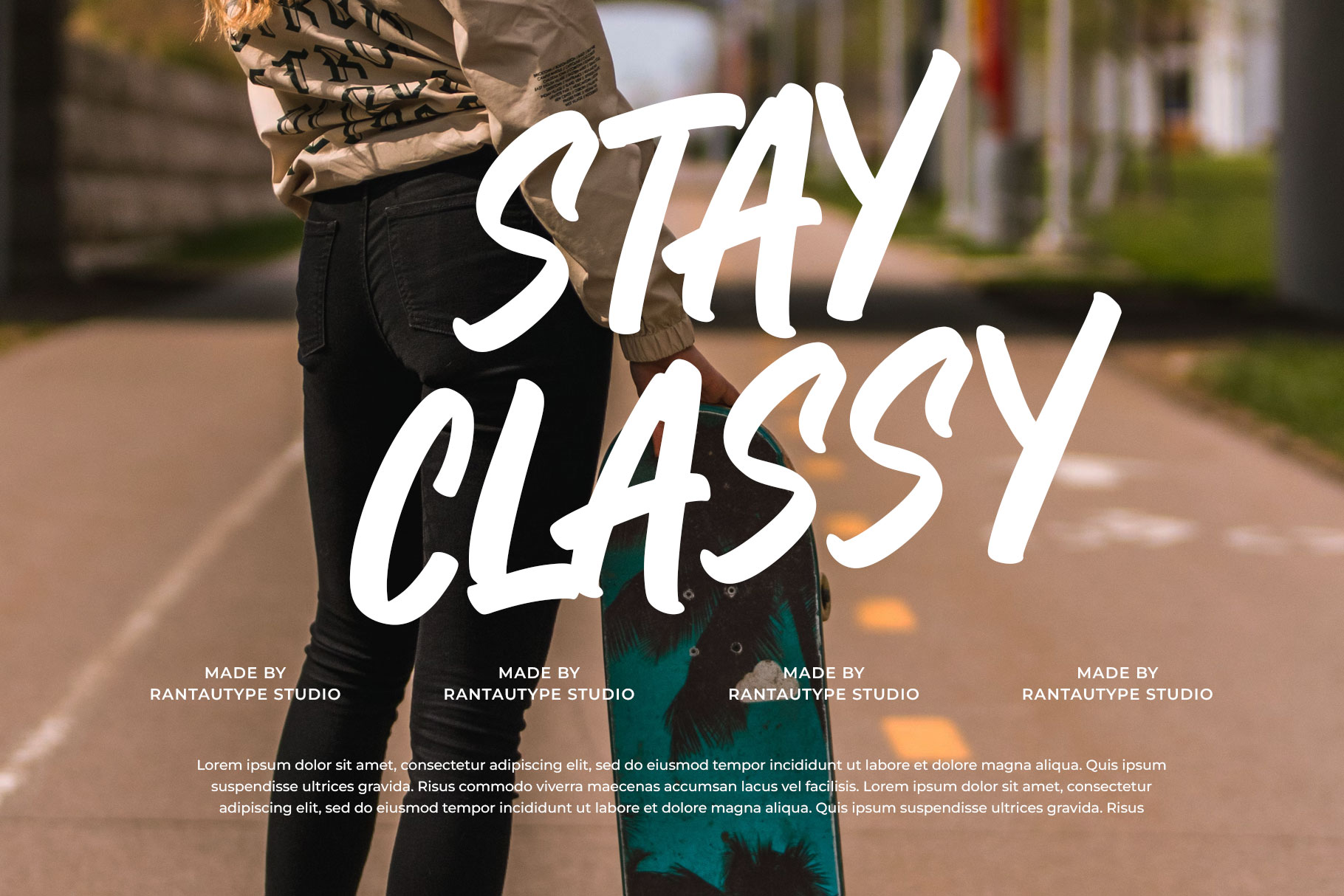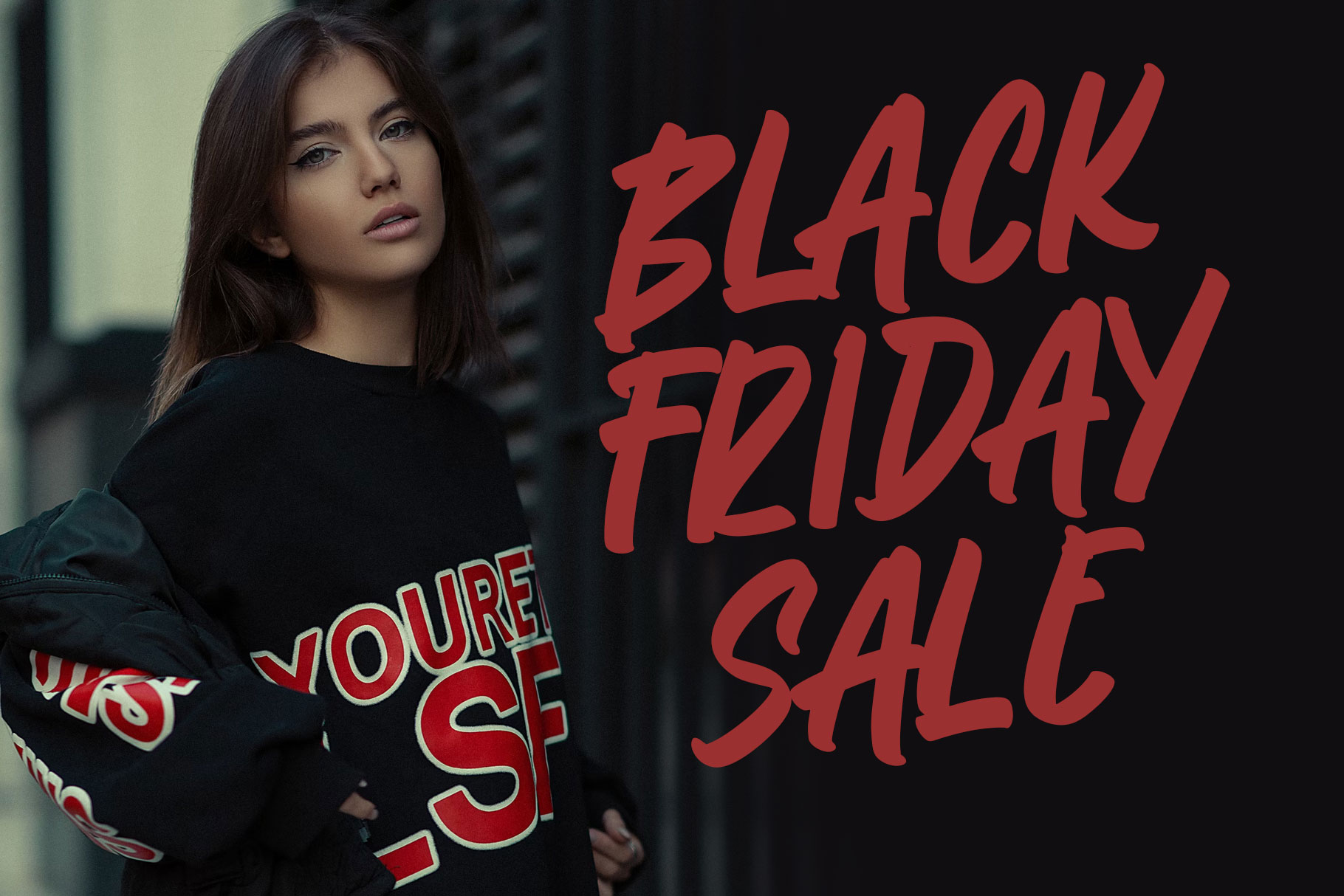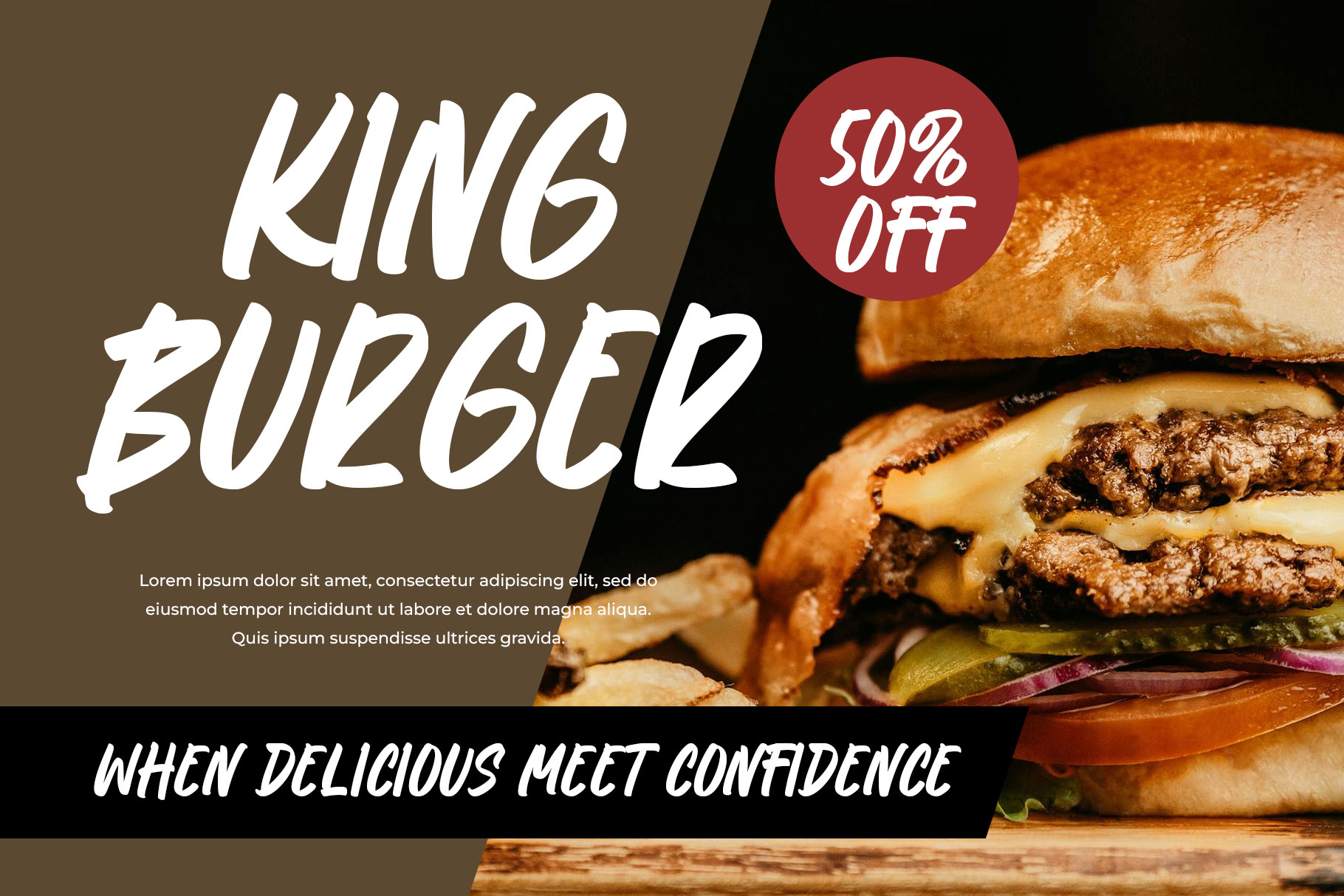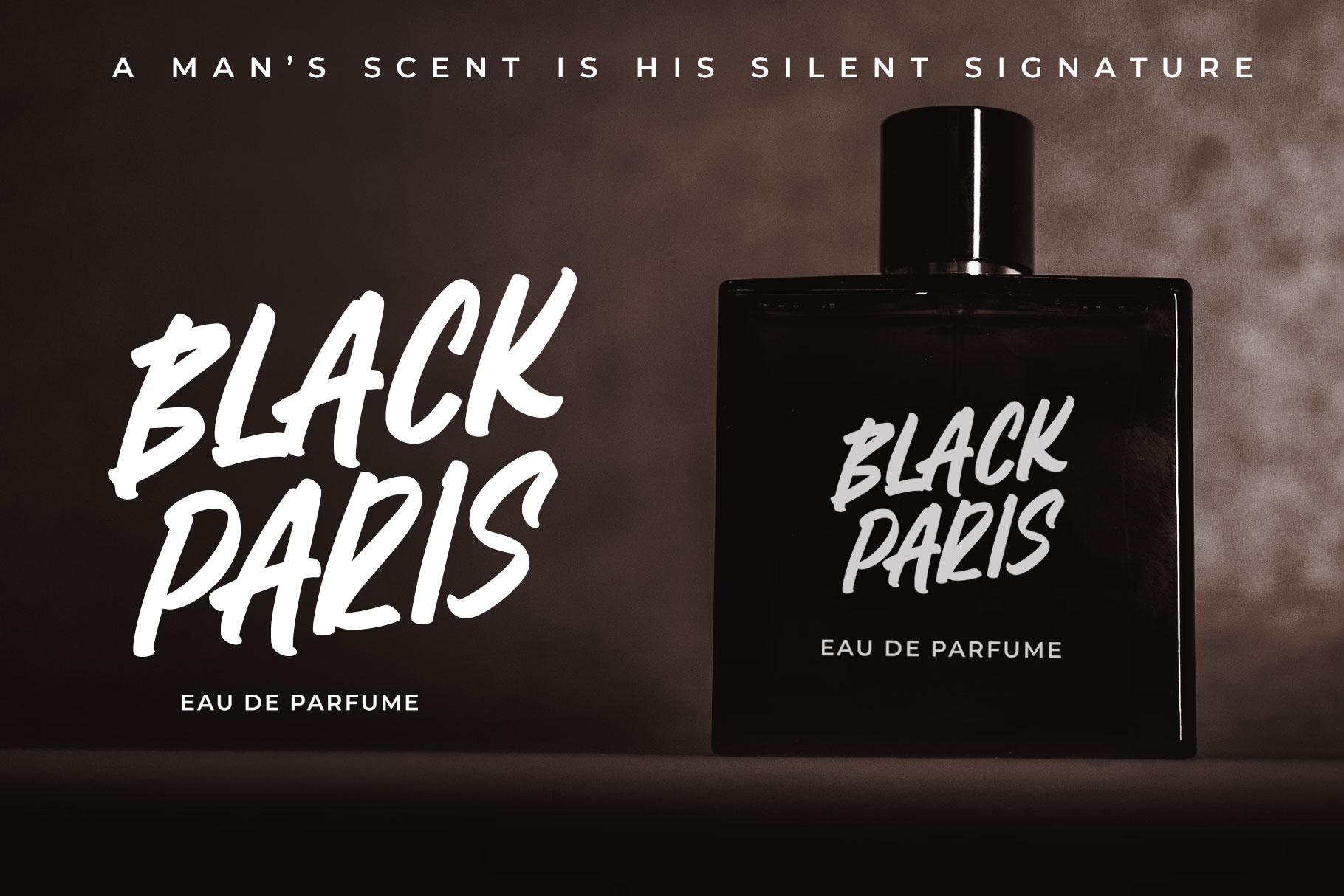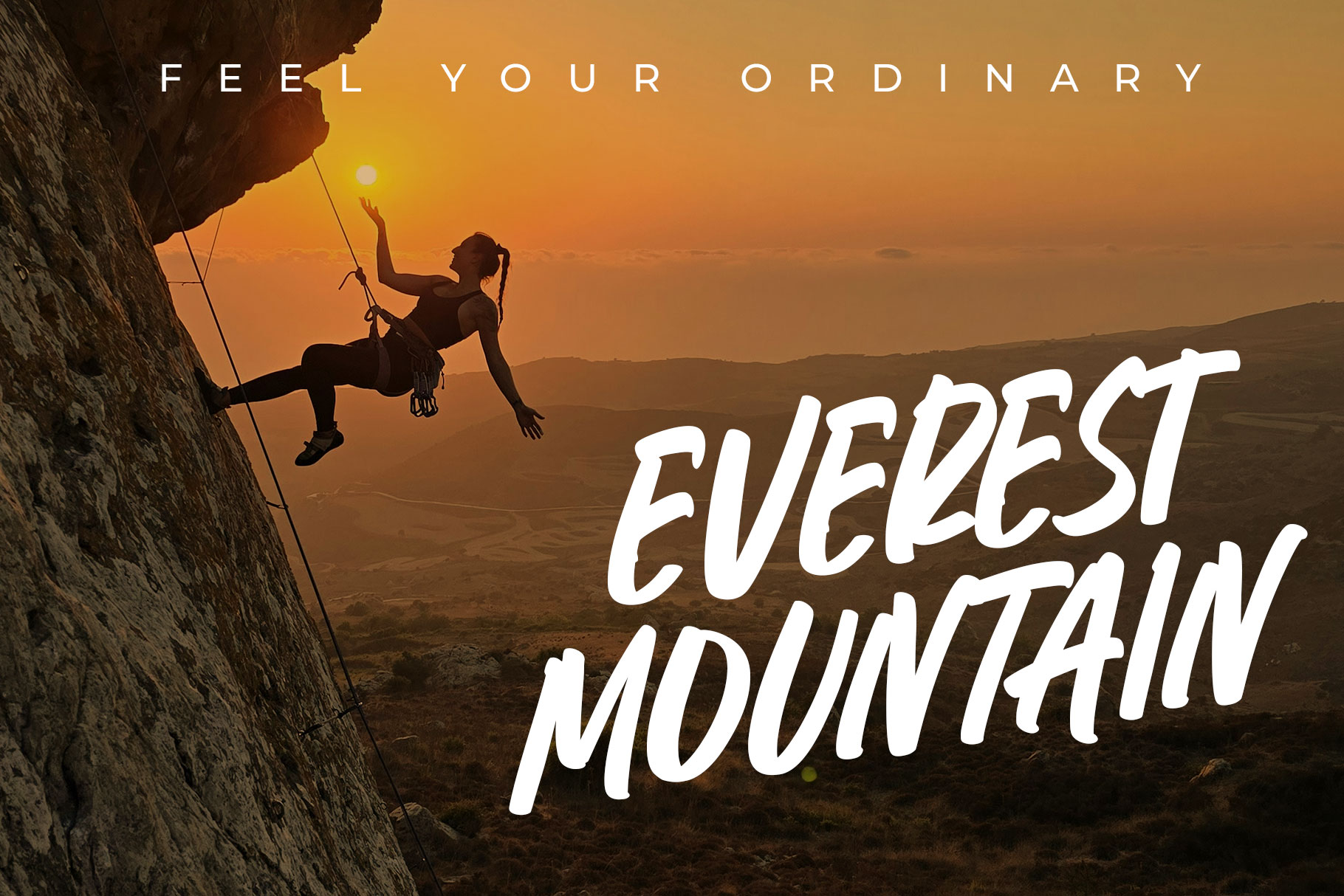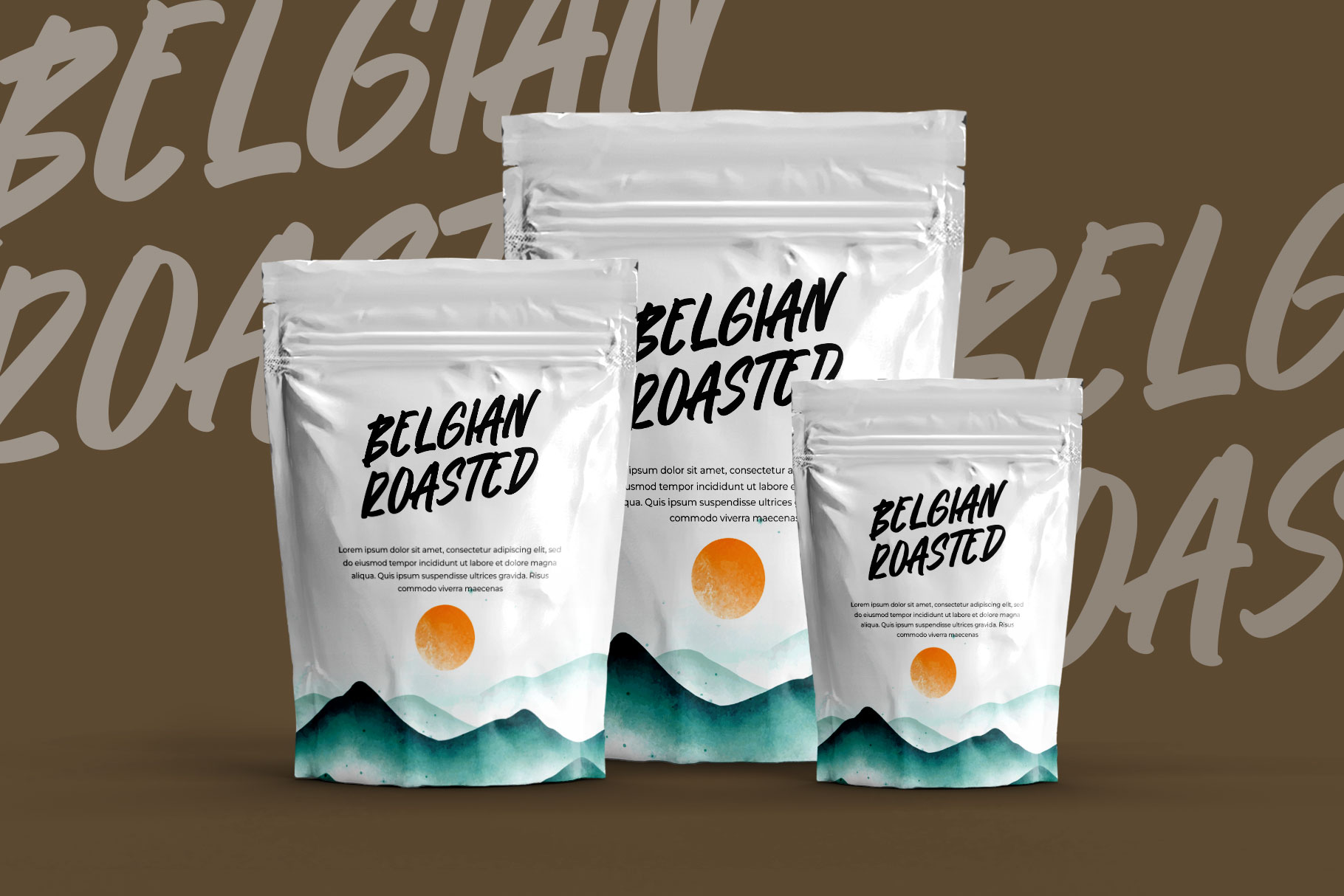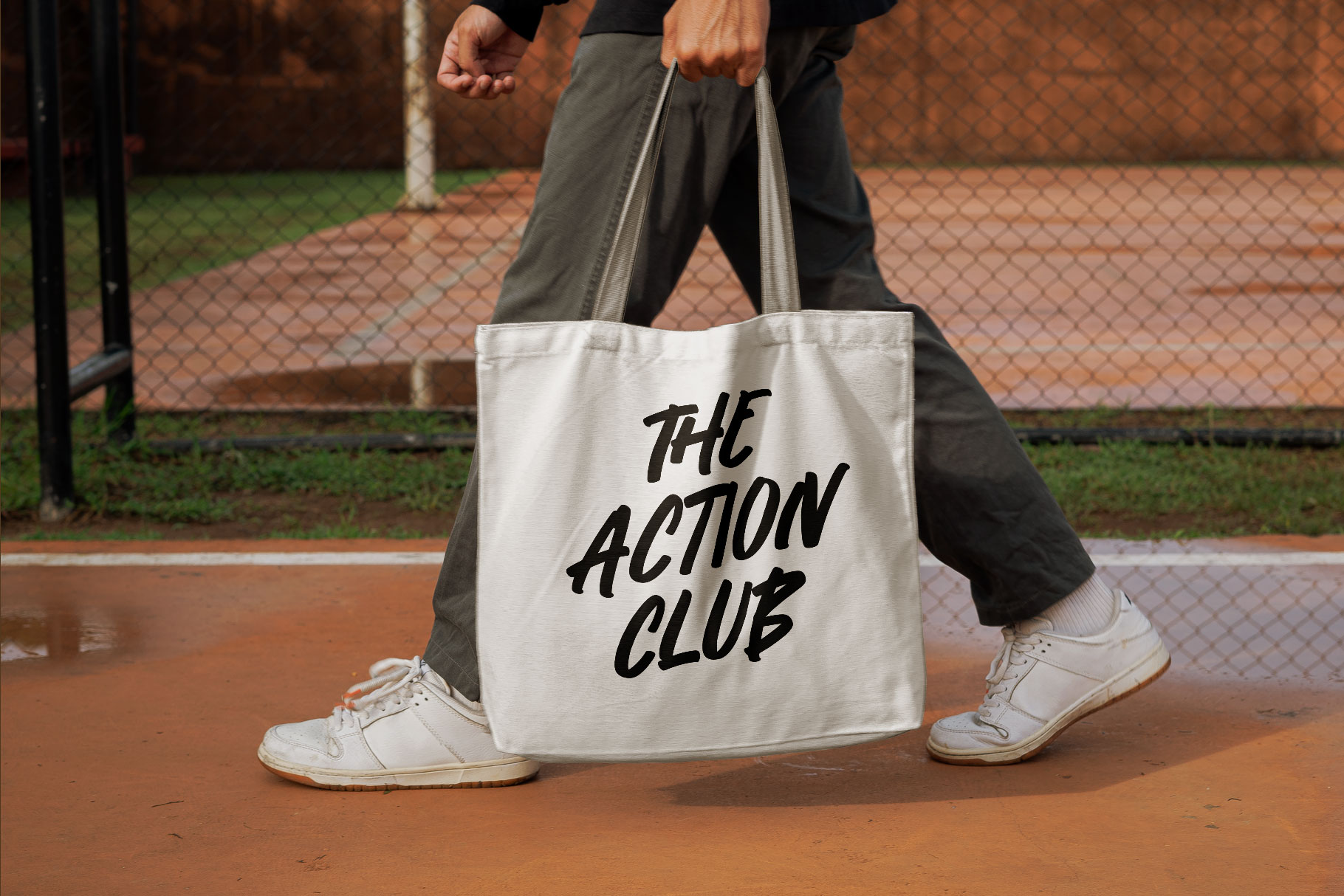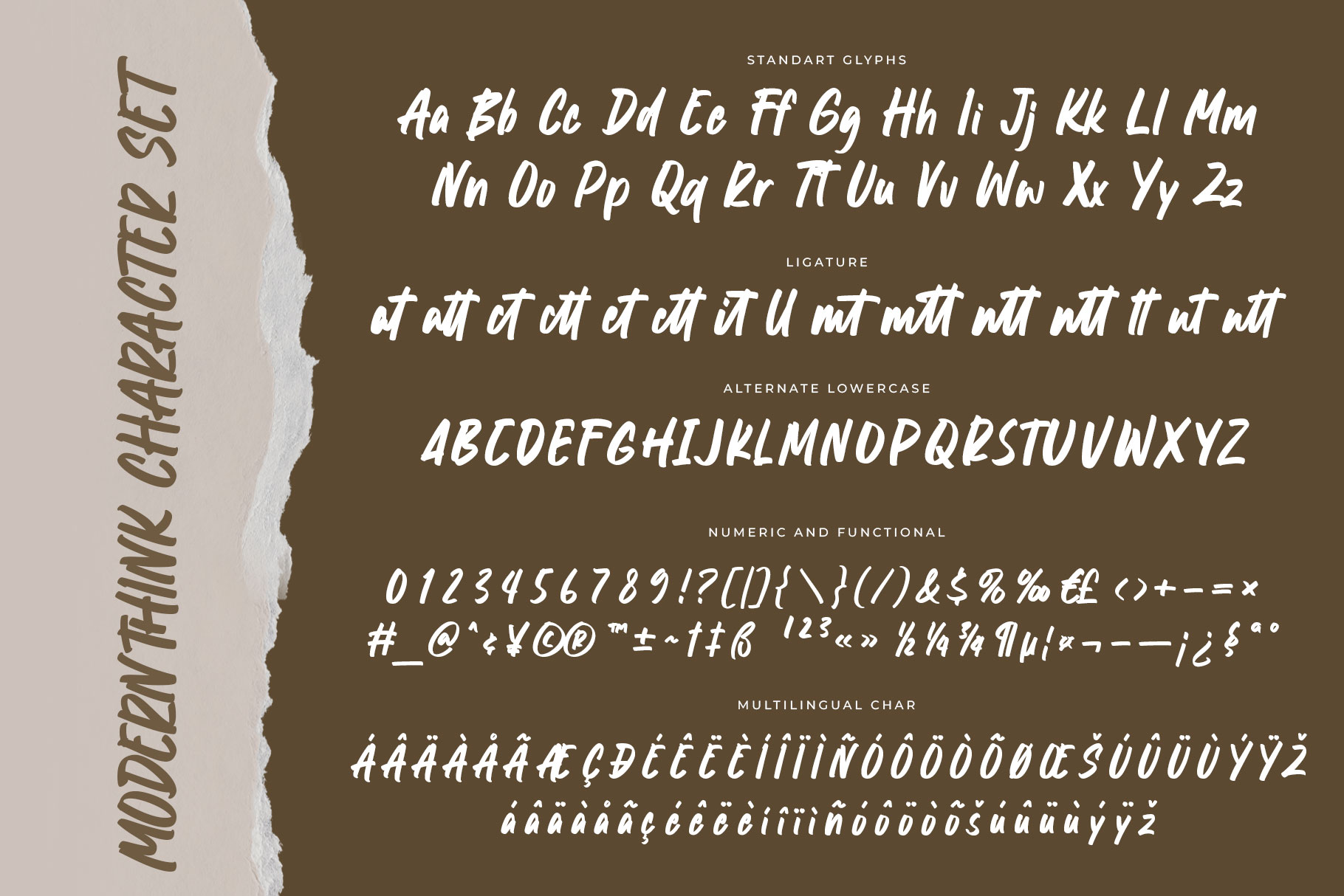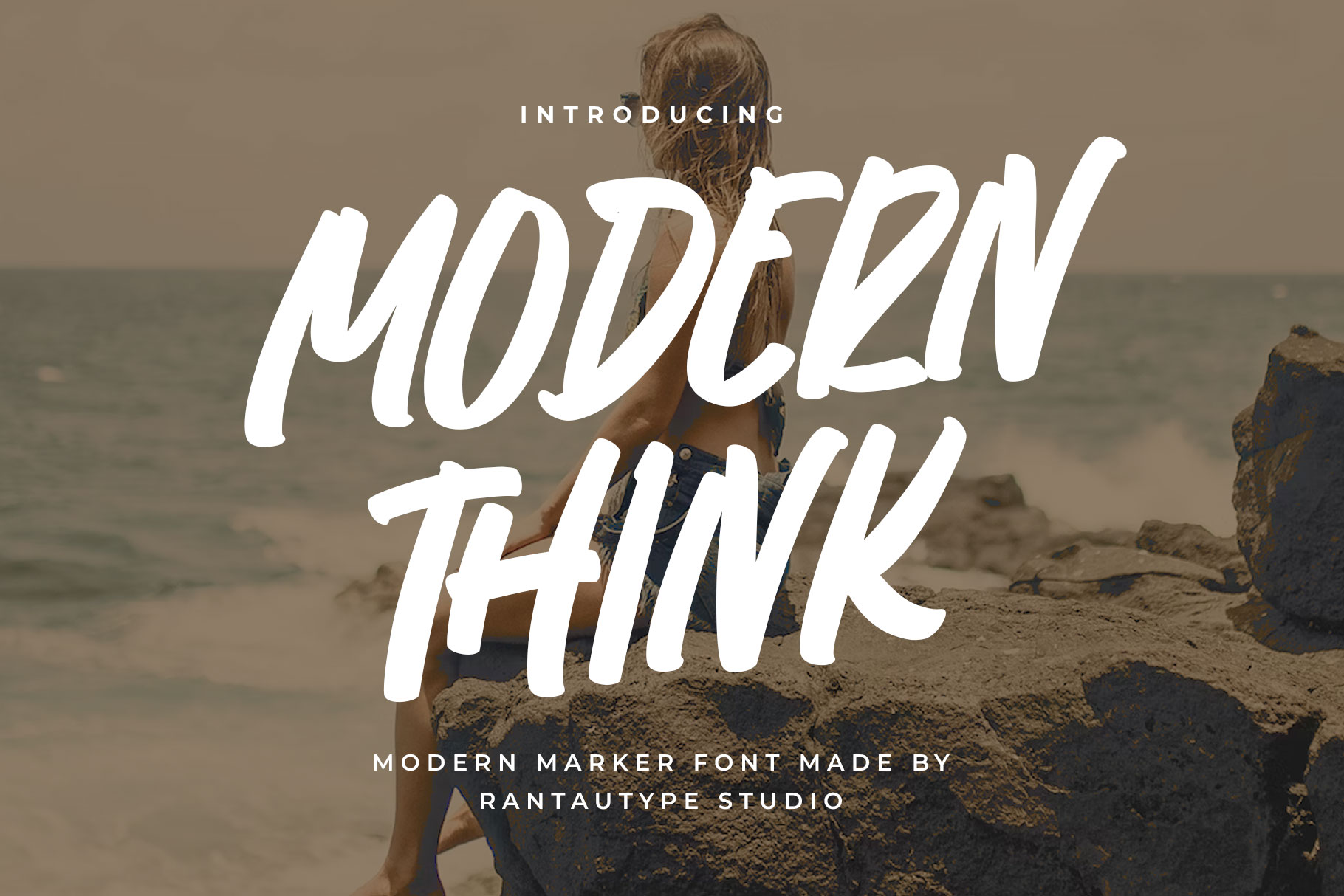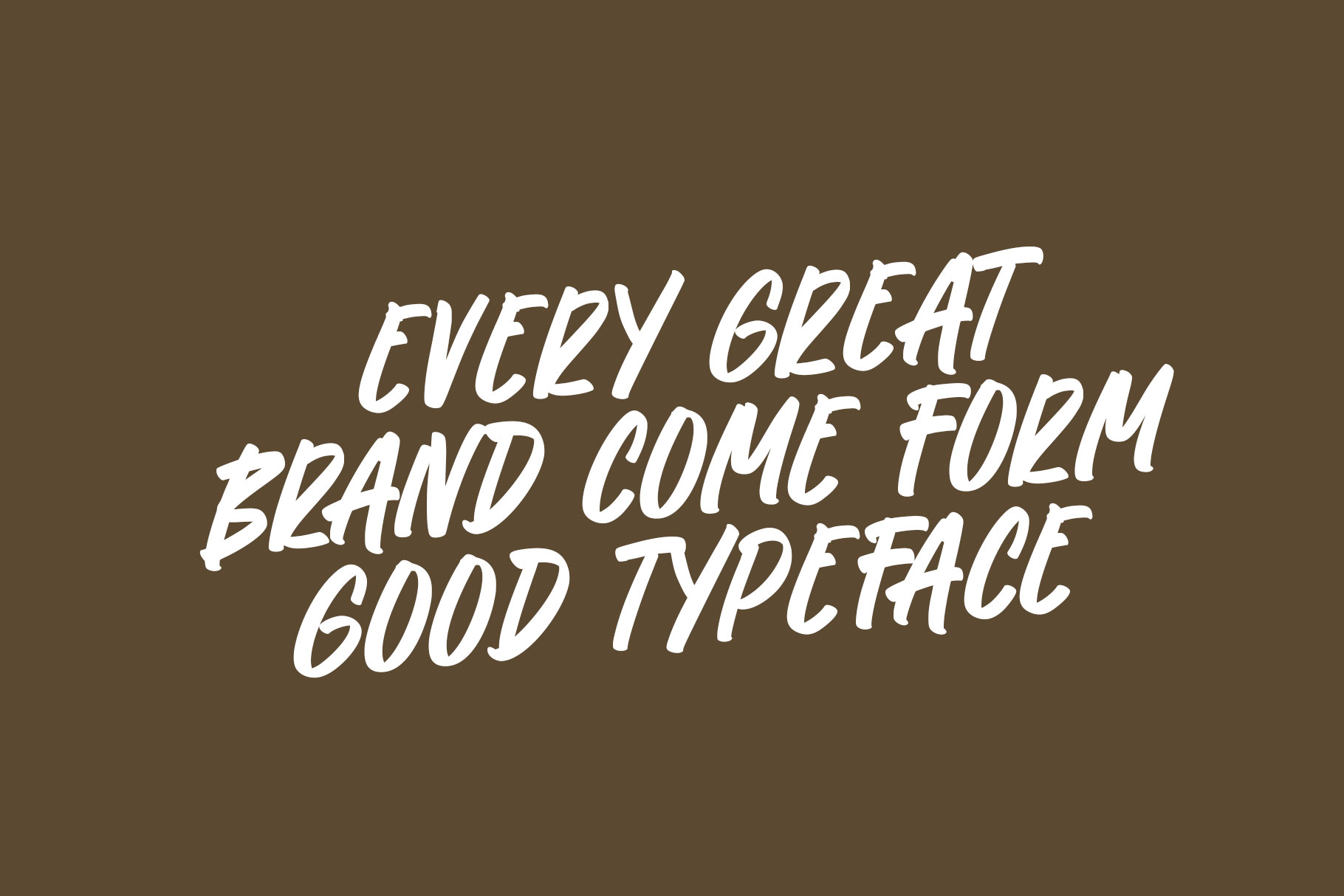
Modern Think Marker Font
Modern Think is modern market font made by rantautype studio. Modern Think is a perfectly choice for any creative endeavor, creating, modern, lifestyle design such as logotype, title, cover, branding, invitations, wedding designs, display and magazine, social media posts, advertisements, printed quotes, product packaging, corporate brand, product designs, labels, photography, watermarks, special events and any other project with modern touch.